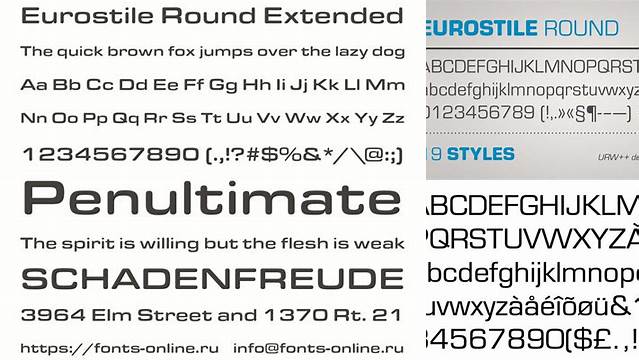
Eurostile Round Font: Free Download And Design Guide
Hey design enthusiasts! Are you on the hunt for a cool, versatile font that can give your projects a modern and clean look? Look no further than the Eurostile Round font family! This fantastic font, with its unique rounded edges, is perfect for a wide range of design applications. And the best part? You can find a Eurostile Round font family free download to get started right away! Let's dive into everything you need to know about this awesome font and how you can use it to level up your designs. Ready, guys?
What is Eurostile Round? Exploring the Font’s Characteristics
So, what exactly makes the Eurostile Round font so special? Well, it's a variation of the classic Eurostile font, but with a twist – or rather, a curve! Instead of the sharp, geometric edges of the original Eurostile, this version features rounded corners, giving it a softer, more approachable feel. This subtle change makes a huge difference, as it softens the bold, industrial vibe of the original and makes it much more versatile for various design projects. The font is a sans-serif, meaning it doesn't have the small lines (serifs) at the end of the strokes, contributing to its clean and modern aesthetic. It typically comes in various weights and styles, such as regular, bold, and italic, providing you with plenty of options to create the perfect look for your project. Imagine having a whole family of styles at your fingertips – that's the beauty of the Eurostile Round font family! The rounded design elements contribute to a visual experience that is contemporary and friendly, making it ideal for a wide audience. The design's emphasis on readability coupled with its modern flair makes it a popular choice for designers aiming to create visually engaging content. You can consider using it in a variety of different design contexts, from branding to web design, all while keeping a cohesive and appealing aesthetic. Its adaptability lies in its simple yet striking design, which caters to numerous artistic visions and project requirements. This adaptability is a key reason the font continues to be a popular choice among designers who want a balance of modernity and approachability. The consistent design and the flexibility across different weights also provide a versatile solution for text-heavy applications where readability is critical. The character set's structure maintains clarity even in smaller sizes, which ensures that the text will still look good, and will be very easy to read, no matter where it is used. The combination of its visual properties and the availability of different weights make it an essential asset in any designer's toolkit. Whether you’re designing a website, creating marketing materials, or crafting a logo, the Eurostile Round font can help you achieve a polished and professional look. The balance between the geometric foundation and softer curves gives your designs a touch of uniqueness that can help them stand out. So, whether you're a seasoned designer or just starting out, give the Eurostile Round font family a try, and see how it can transform your projects!
Benefits of Using the Eurostile Round Font Family
Alright, let's talk about why you should consider using the Eurostile Round font family in your projects. There are tons of benefits, guys! First off, the font is incredibly versatile. Its clean, modern design makes it suitable for various applications. Whether you are working on a sleek website design, crafting an eye-catching logo, or designing promotional materials, this font will fit right in. Another major advantage is its readability. The rounded edges soften the harshness of the original Eurostile, making it easier on the eyes, which is super important, especially for large blocks of text. This enhanced readability makes it a great choice for body text in brochures, articles, or websites. Plus, the availability of different weights and styles within the font family gives you the flexibility to create a cohesive visual identity. From headlines to subheadings and body text, you can maintain a consistent look and feel throughout your designs. This consistency is key to building a strong brand and creating a professional image. Furthermore, the font’s modern aesthetic ensures that your designs will always feel up-to-date and contemporary. It is a perfect font choice if you're looking to give your projects a fresh, modern vibe. The ability to use it across different platforms without sacrificing the overall aesthetic value is what makes the font family so powerful and a great option for all your design needs. Also, let's not forget about the free download options available! The fact that you can get the Eurostile Round font family free download makes it accessible to everyone, from hobbyists to small business owners. This accessibility removes any financial barriers and allows you to experiment with the font and see how it can enhance your designs. In essence, using this font can boost the overall appeal of any project. Its modern yet approachable design, enhanced readability, and flexibility make it a go-to choice for designers across the board. When you consider the numerous benefits, it's pretty clear why the Eurostile Round font family is a must-have in your design toolkit!